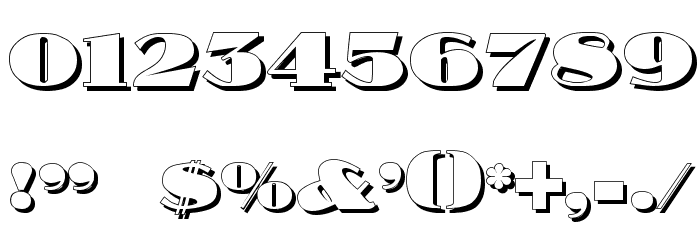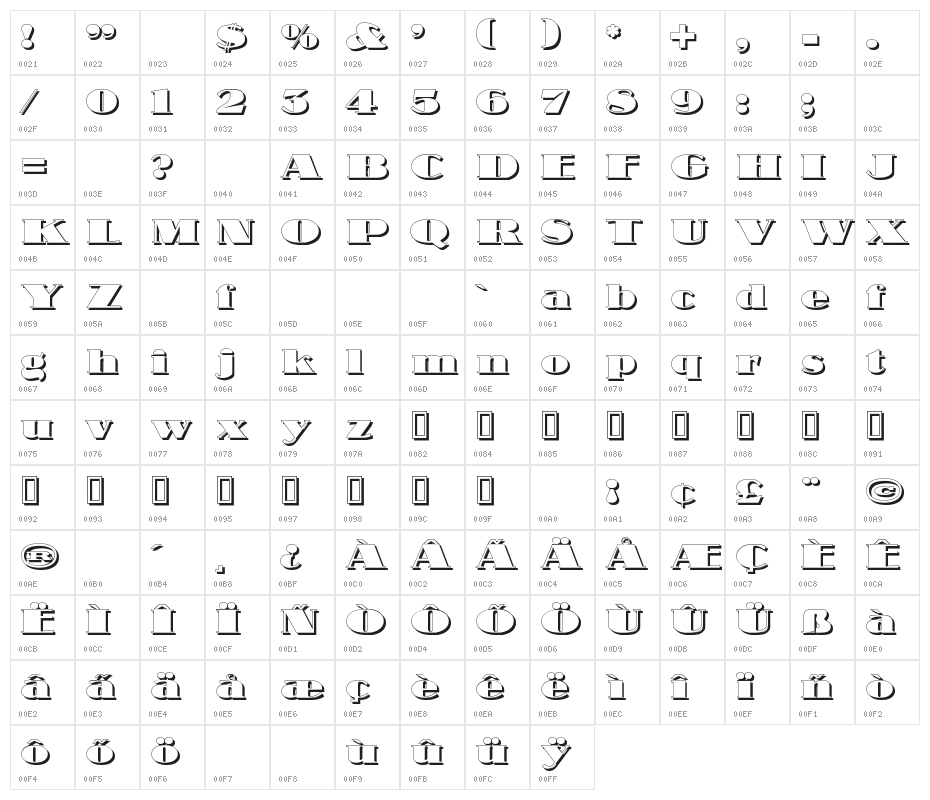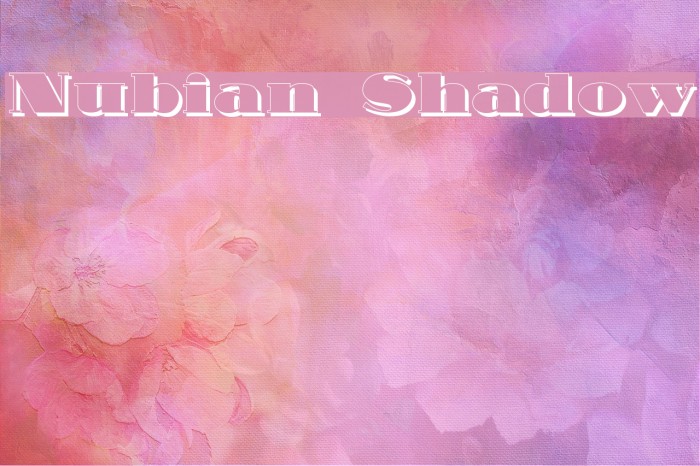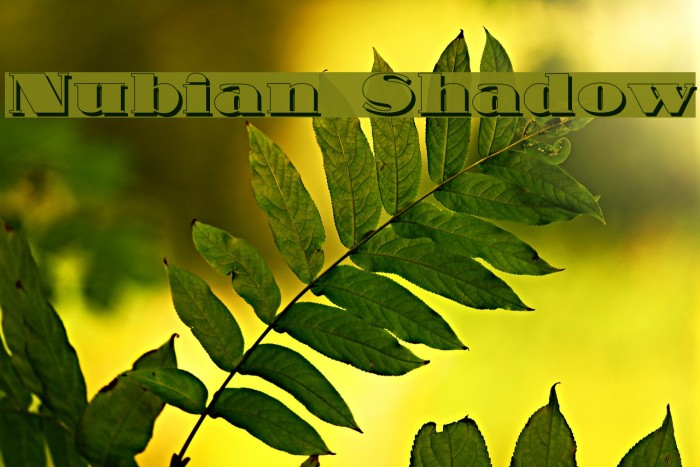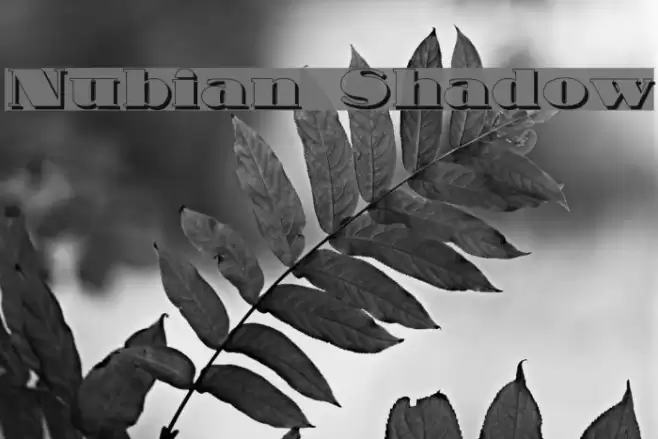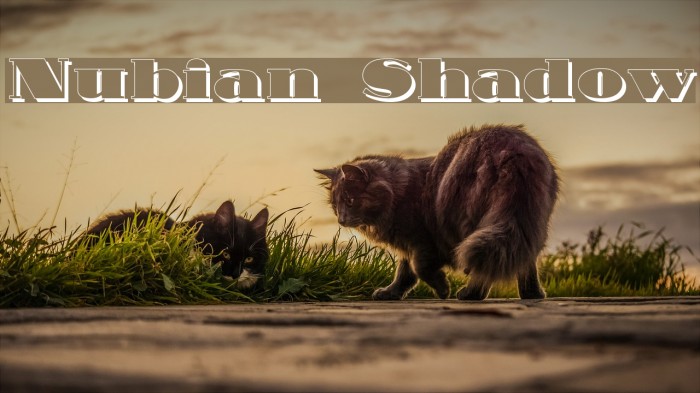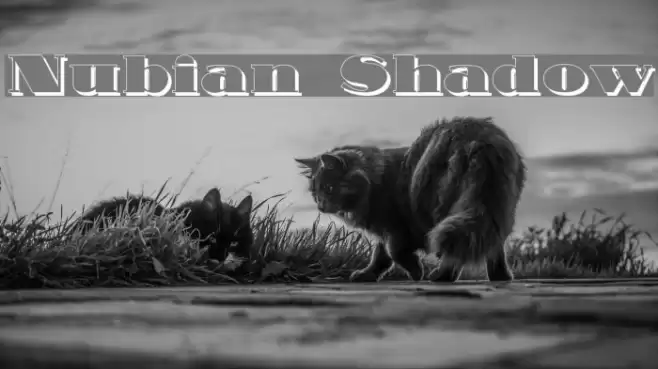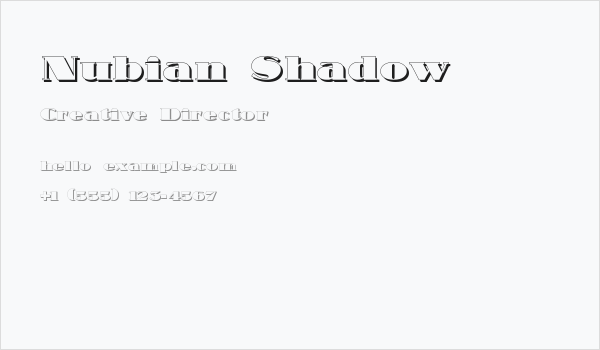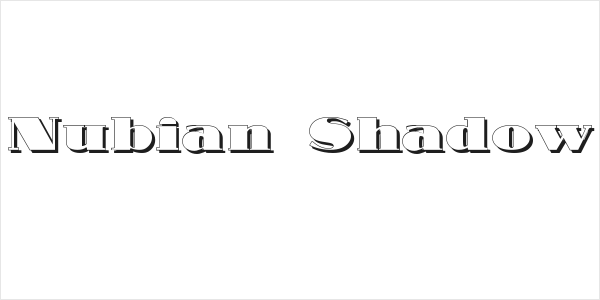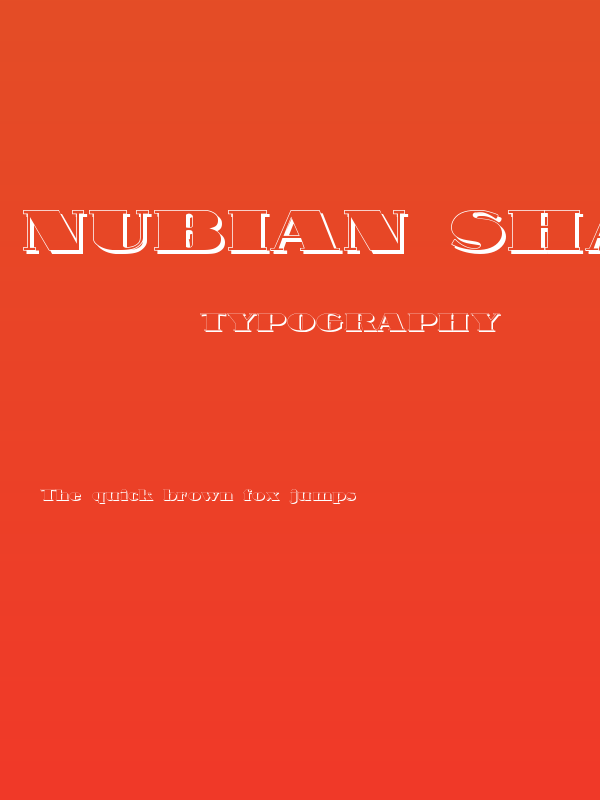
Nubian Shadow Font
Nubian Shadow Description
This font features a bold and impactful design with a distinct shadow effect that adds depth and dimension to each character. The uppercase and lowercase letters are well-defined, with a strong presence that makes them stand out. The numerals and special characters maintain the same boldness and shadow styling, ensuring consistency across all glyphs. The font's style is both modern and decorative, making it suitable for a variety of creative applications. The shadow effect gives it a three-dimensional appearance, enhancing its visual appeal.
| Proposed Projects | Ideal for headlines, posters, logos, and any design project that requires a striking and memorable typeface. |